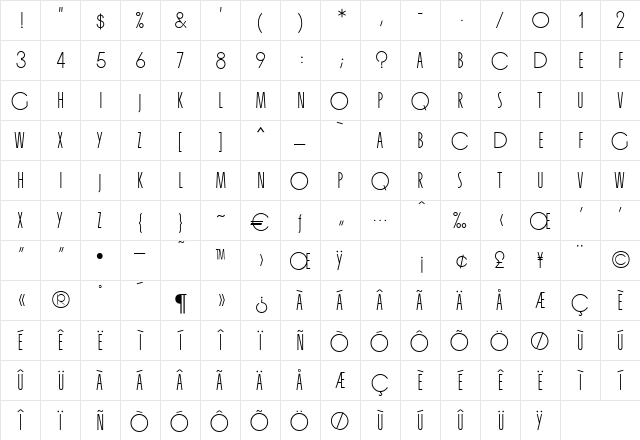
Organda MN Regular Font Preview
Organda MN Regular
Design Context for Organda MN Typeface
Organda MN is a composed and adaptable typeface that performs quietly and consistently across a wide range of design contexts.